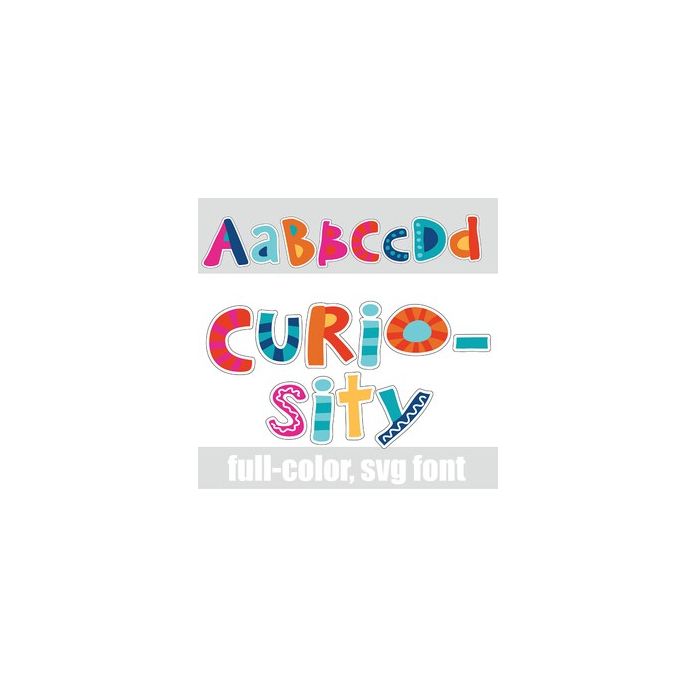
This full-color font features bright, colorful and playful lettering. There is an alt case w/ additional colors you can access through your system or Silhouette's glyph map.